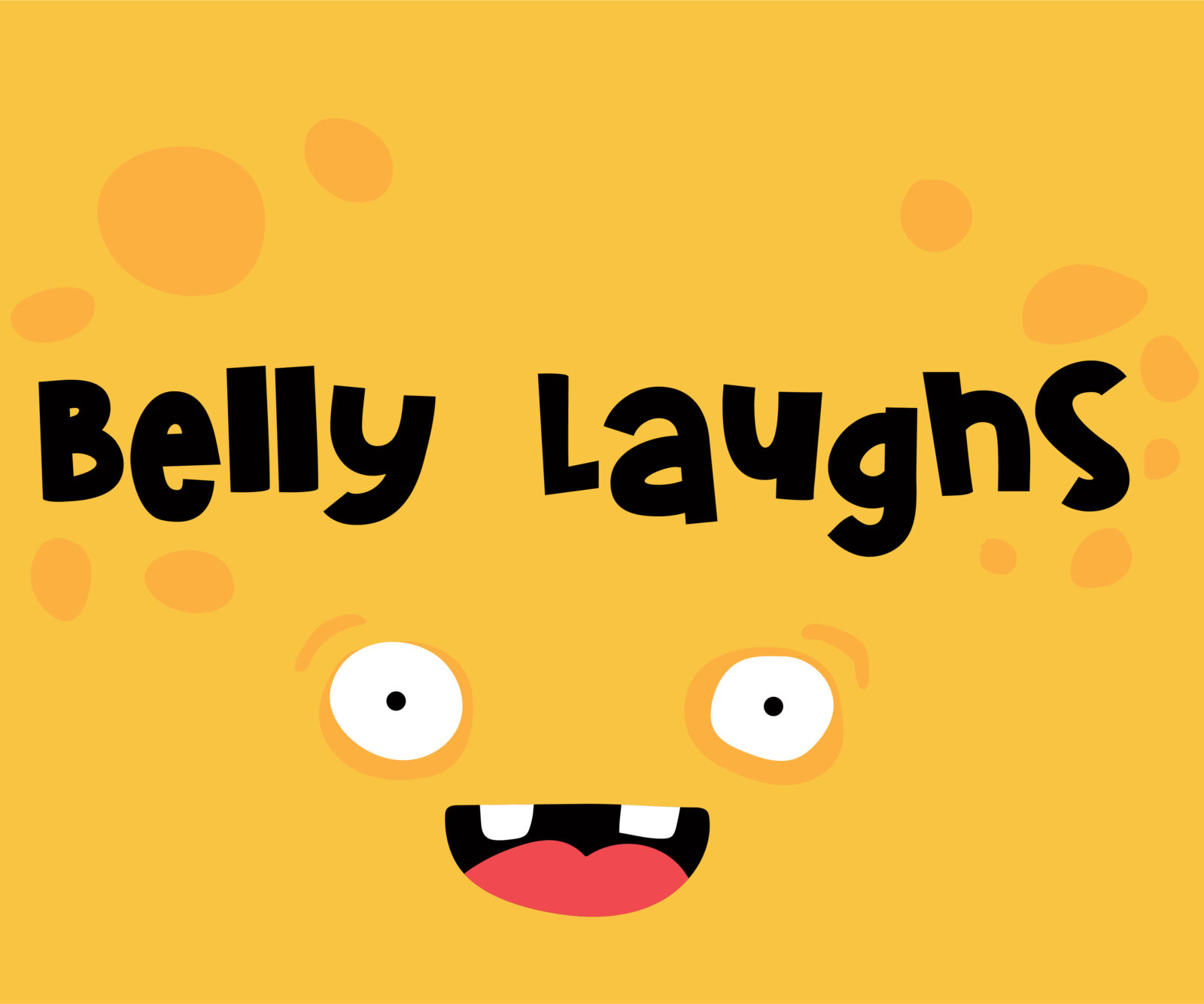
The Joy of Belly Laughs Font: Adding Whimsy to Your Designs
I still remember the time I was working on a project for a children’s birthday party invitation. I had all the design elements in place – the colors, the graphics, the layout – but something was missing. It wasn’t until I stumbled upon the Belly Laughs Font that the design truly came alive. This child-like display font added a playful touch that perfectly captured the spirit of the party.
An Honest Review of Belly Laughs Font
So, what makes Belly Laughs Font so special? Let’s dive into the good stuff and a few quirks to consider.
• ✨ Fun and playful vibe: Belly Laughs Font is perfect for designs that need a dash of whimsy and humor.
• ✅ Easy to read: Despite its playful nature, the font remains clear and legible, even at smaller sizes.
• 💡 Versatile: Use it for titles, posters, party invitations, or any project that needs a lighthearted feel.
While Belly Laughs Font is fantastic for adding a playful touch, there are a few things to keep in mind:
• 🤔 Limited use cases: This font is best suited for display purposes. It might not be the best choice for body text or more formal designs.
• ⚠️ Not ideal for small sizes: The font’s playful nature can get lost when scaled down. It’s best used at larger sizes where its details shine.
The Story Behind Belly Laughs Font
The Belly Laughs Font was created with the intention of bringing joy and playfulness to designs. Its creator aimed to craft a font that would instantly evoke a sense of fun and silliness, making it perfect for projects aimed at children or those who are young at heart.
Q: What type of projects is Belly Laughs Font best suited for?
A: Belly Laughs Font is ideal for projects that require a fun and playful touch, such as children’s party invitations, posters, and titles.